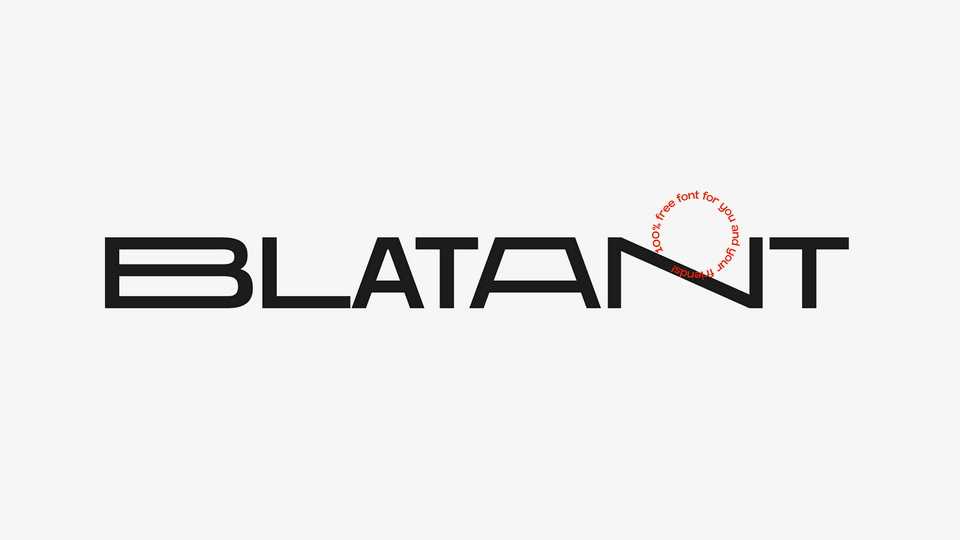
Download Blatant font, a versatile display typeface that seeks to attract attention so that it does not go unnoticed. Blatant has a lot of alternates for unique messages and artworks.
Designer: Tomás Castiglioni